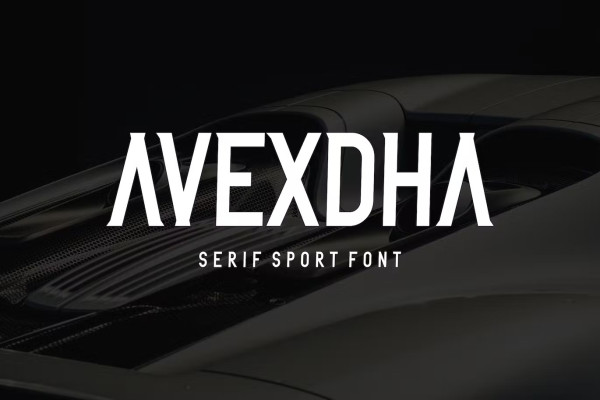
Avexdha Font
Avexdha Font modern font is a bold and authentic serif display font. The font is suitable for any branding project like logo, t-shirt printing, esport, and many more. Outstanding in a wide range of contexts